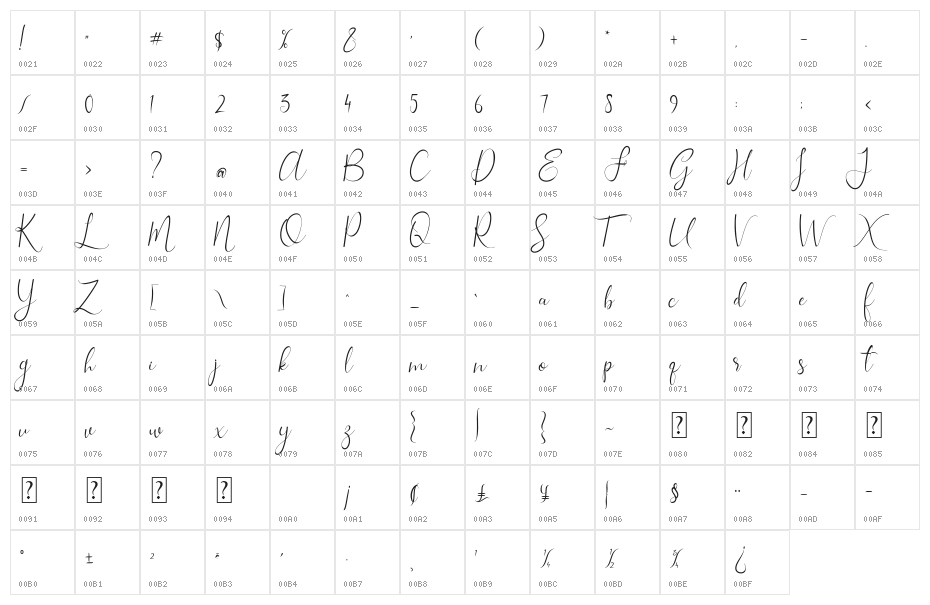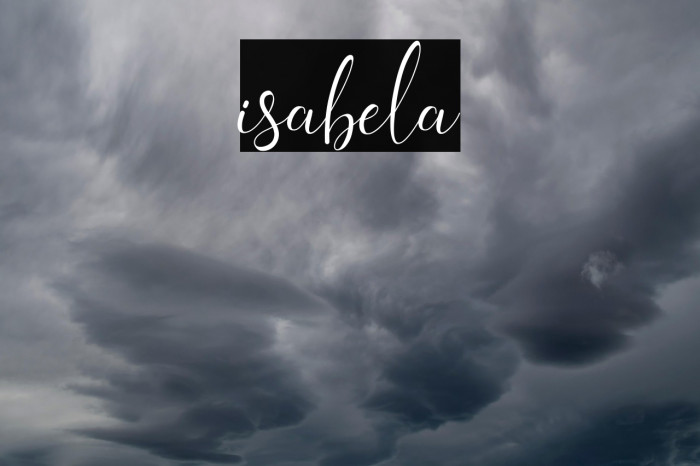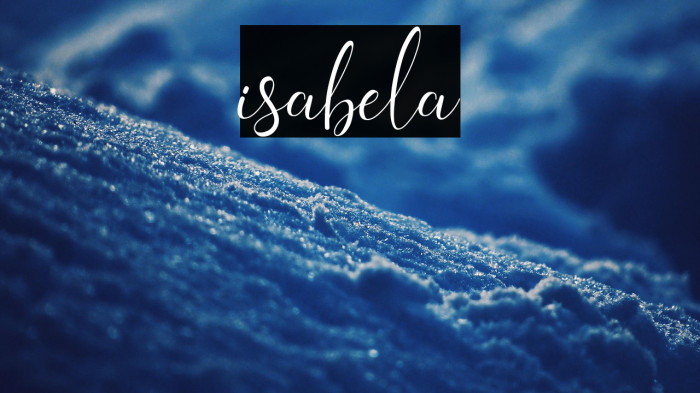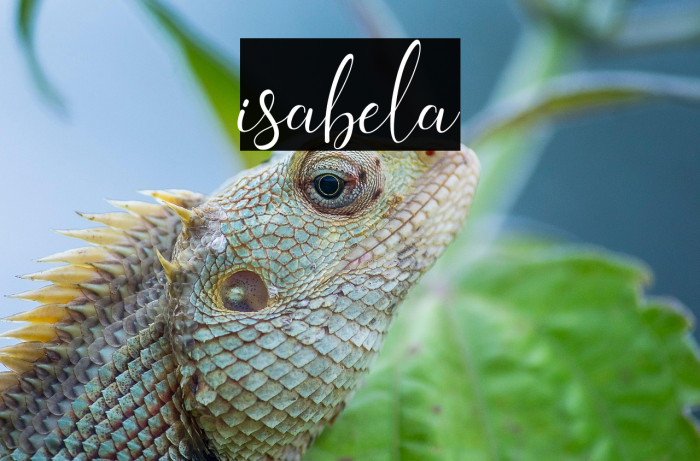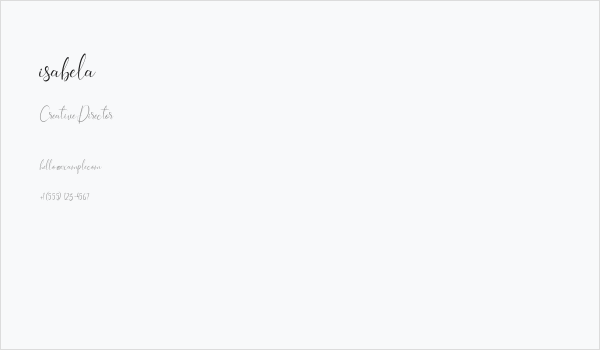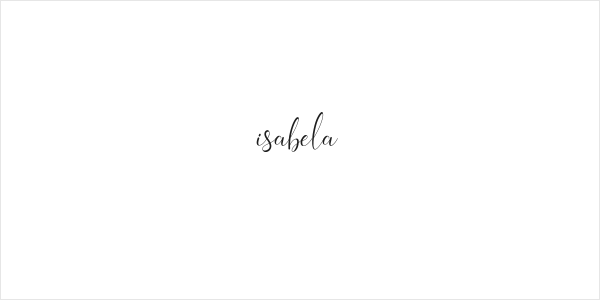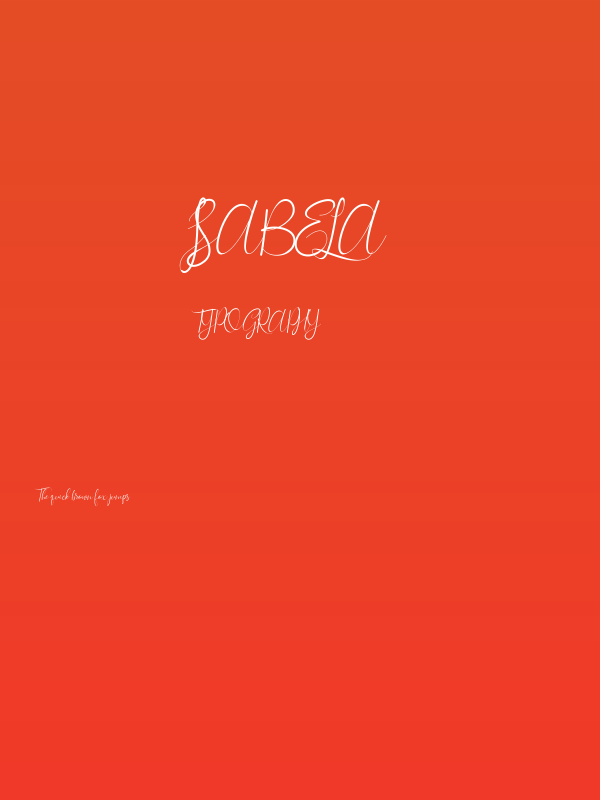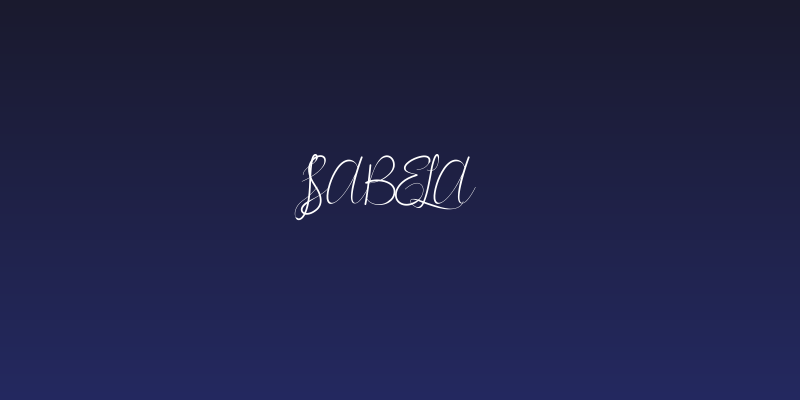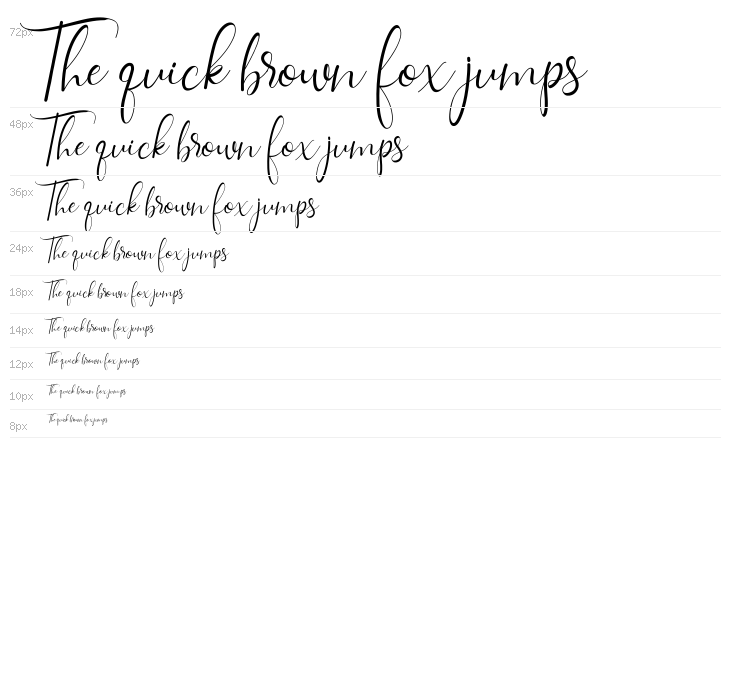
isabela Font
isabela Description
This font exudes elegance and sophistication with its fluid, cursive style. The uppercase letters are tall and slender, featuring graceful loops and swirls that add a touch of whimsy. The lowercase letters maintain a consistent flow, with smooth connections between each character, enhancing readability while preserving an artistic flair. The numerals are distinct yet harmonious with the overall script, featuring slight flourishes that complement the alphabet. Special characters are thoughtfully designed to match the font's aesthetic, making it versatile for various uses. The overall impression is one of refined beauty, suitable for projects that require a touch of class and elegance.
| Overall Style | Elegant, Decorative |
| Use Case | Headlines, Invitations, Branding |
| Proposed Projects | Ideal for wedding invitations, elegant branding, personal stationery, and high-end product packaging. |